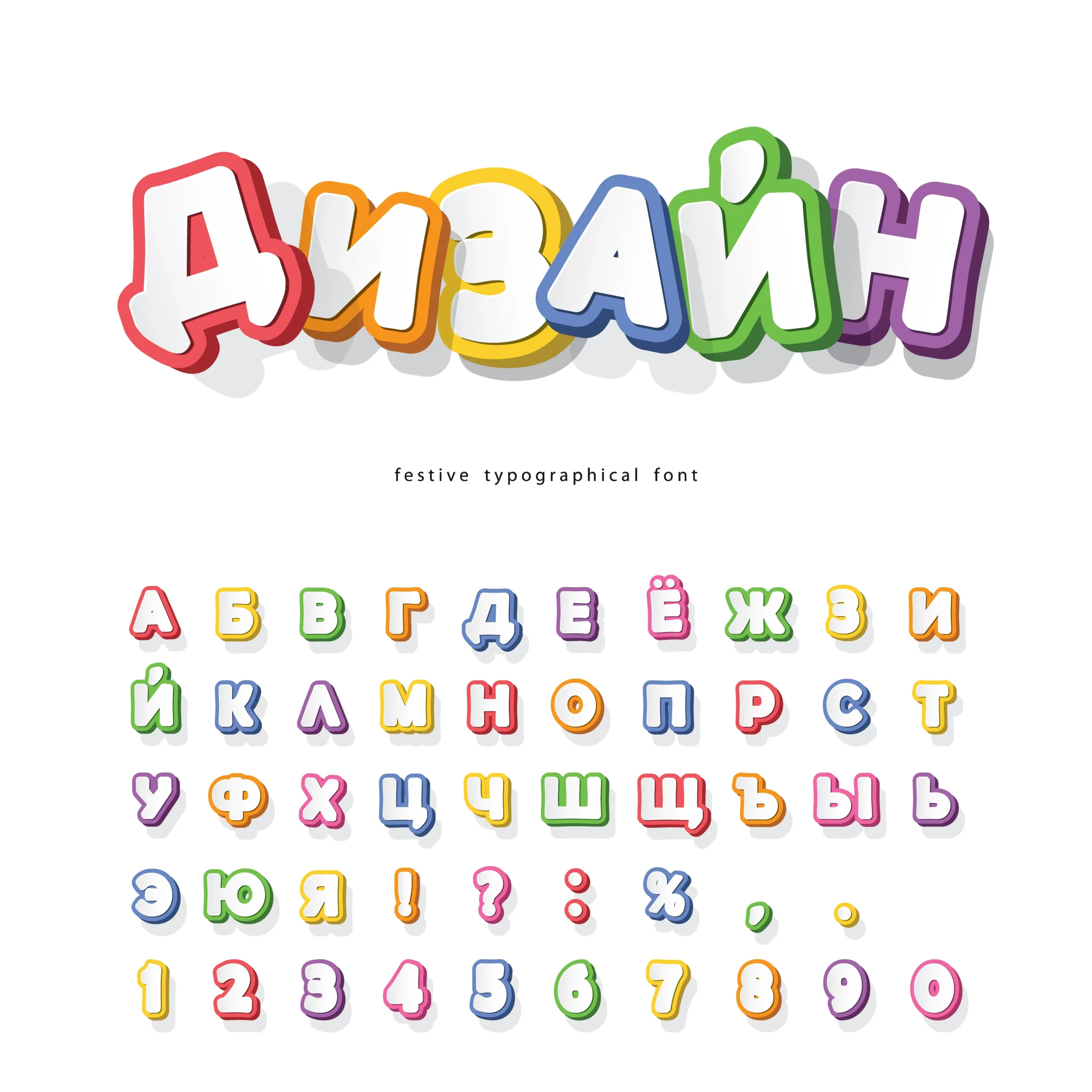
Modern 3D Cyrillic Bright Font
The Modern 3D Cyrillic Bright Font is a striking typeface designed to bring a contemporary flair to your projects. With its bold 3D effects and vibrant character set, this font is perfect for a variety of applications, including branding, logos, web design, and print media.
• Stylish 3D design that adds depth and dimension
• Complete Cyrillic character set for versatile use
• Multiple weights for flexibility in design
• Easy to read, making it suitable for both headlines and body text
• Ideal for eye-catching posters, advertisements, and social media graphics
• Use in combination with complementary fonts for a balanced design